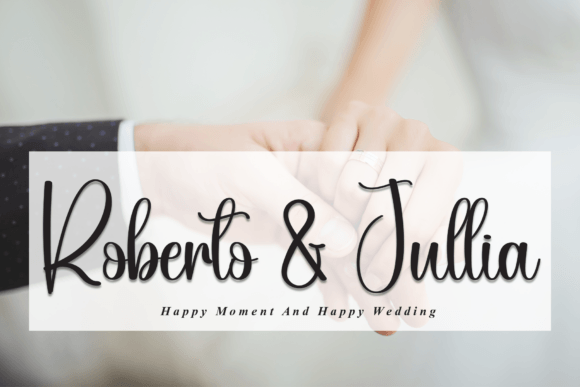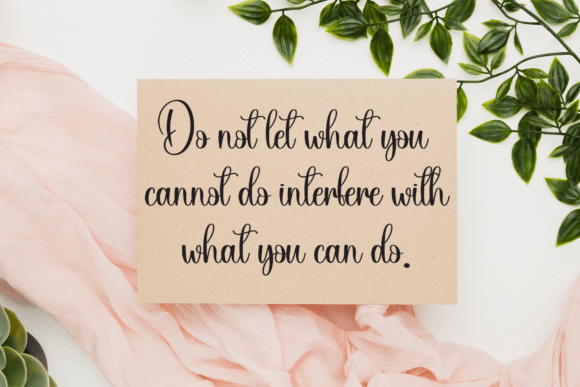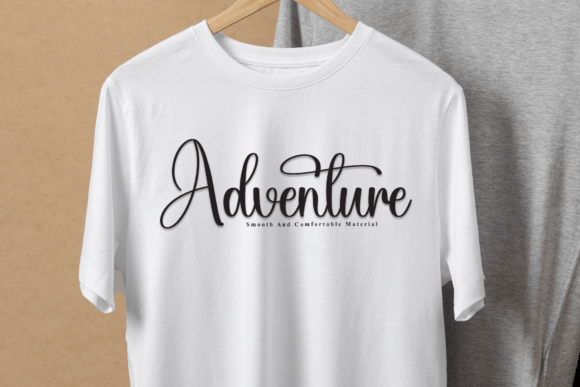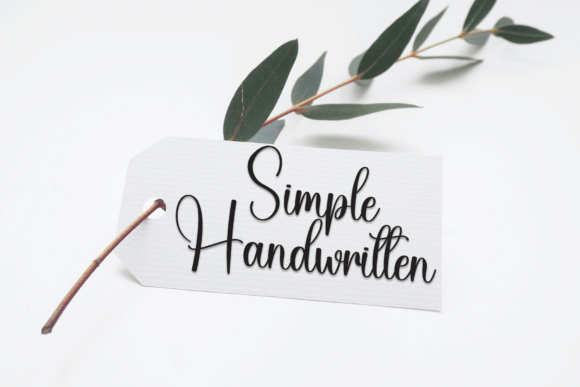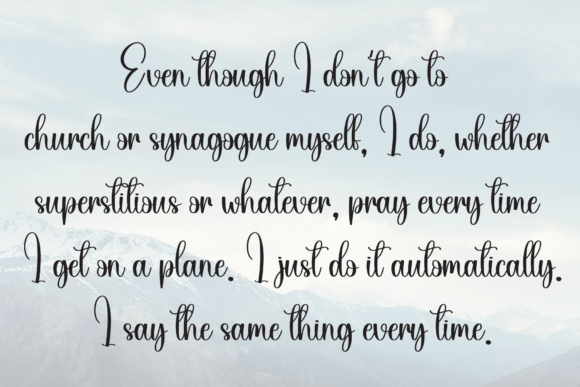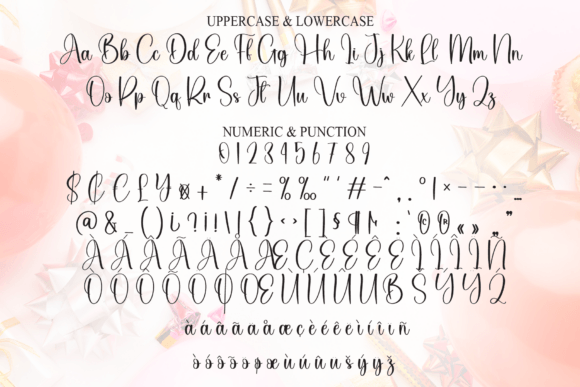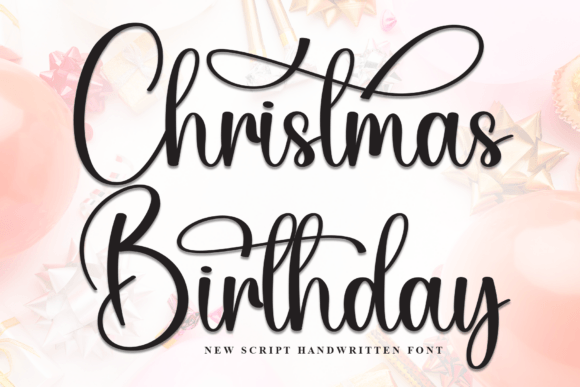
The Perfect Blend of Festivity and Personal Touch: Unveiling the Christmas Birthday Font
Have you ever found yourself rummaging through your stash of art supplies, searching for the perfect font to capture the essence of a special occasion? Perhaps it’s a holiday card or a birthday invitation that needs a dash of creativity to make it truly unforgettable. As a designer, you know the importance of finding that one font that can elevate your design and leave a lasting impression.
Enter the Christmas Birthday Font, a stunning handwritten script font that embodies the perfect blend of elegance and playfulness. With its smooth, flowing lines, this font is sure to add a personal touch to any project, from logos to greeting cards. Its natural and creative style makes it a valuable addition to any designer’s toolkit, allowing you to stand out in a crowded market.
Christmas Birthday Font Key Features
• Font Family: Christmas Birthday Font is a unique, custom-designed font family that combines elements of festive and celebratory typography.
• Unique Characteristics: Distinctive, hand-drawn elements, such as ornaments, swashes, and flourishes, add a personal touch to any design.
Christmas Birthday Font Review
Overall, I’d say the Christmas Birthday Font has some great aspects to it, but it also has a few limitations that might make it less appealing to some designers. ✨ Here are my thoughts:
• ✨ The font is super festive and perfect for Christmas-themed projects, especially those that involve birthdays. It’s got a fun, playful vibe that’s sure to put a smile on people’s faces.
• ✨ The font is well-designed and easy to read, even at smaller sizes. The characters are well-spaced and the letterforms are clean and crisp.
• ✨ The font comes in a range of weights and styles, including bold and italic, which makes it super versatile and easy to use.
• ⚠️ The font might be a bit too festive for some projects. If you’re looking for a more subtle or professional look, this font might not be the best choice.
• ⚠️ The font is a bit limited in terms of its character set. It doesn’t include any accented characters or special symbols, which might make it difficult to use in certain languages or for specific design projects.
• ⚠️ The font is a bit overused, which might make it feel less original or unique in certain projects.
Overall, I’d say the Christmas Birthday Font is a fun and festive option for designers who are looking to add a bit of holiday cheer to their projects. However, it’s not the best choice for every project, and designers should be aware of its limitations before using it.
The Christmas Birthday Font is perfect for creating festive and personalized birthday invitations, cards, and presentations. You can also use it to create custom birthday graphics, social media posts, and more. To get the most out of the font, be sure to experiment with different sizes, colors, and combinations of text and graphics.